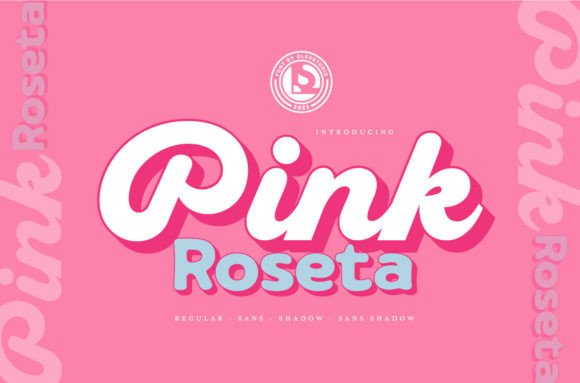
Introducing the captivating Pink Roseta font - a handwritten masterpiece that breathes life into your creative projects! This exquisite script font, crafted by the talented Olexstudio, is a symphony of delicate strokes and well-rounded curves that oozes elegance and authenticity.
With its captivating charm, Pink Roseta brings a touch of whimsical beauty to every design it graces. Let your imagination run wild as you explore the endless possibilities of this versatile font. From wedding invitations and birthday cards to personal branding and elegant logos, Pink Roseta elevates your designs with its distinctive character.
Unleash the power of self-expression with Pink Roseta. Its graceful lines and flowing rhythm capture the essence of individuality, allowing your words and messages to shine with a unique personality. Embrace the artistry of this font and watch as your designs transform into captivating works of art.
Dive into a world of creativity and let Pink Roseta be your guiding light. Whether you're a seasoned designer or just starting your creative journey, this font empowers you to bring your vision to life. Its user-friendly nature makes it accessible to everyone, allowing you to create stunning designs with ease.